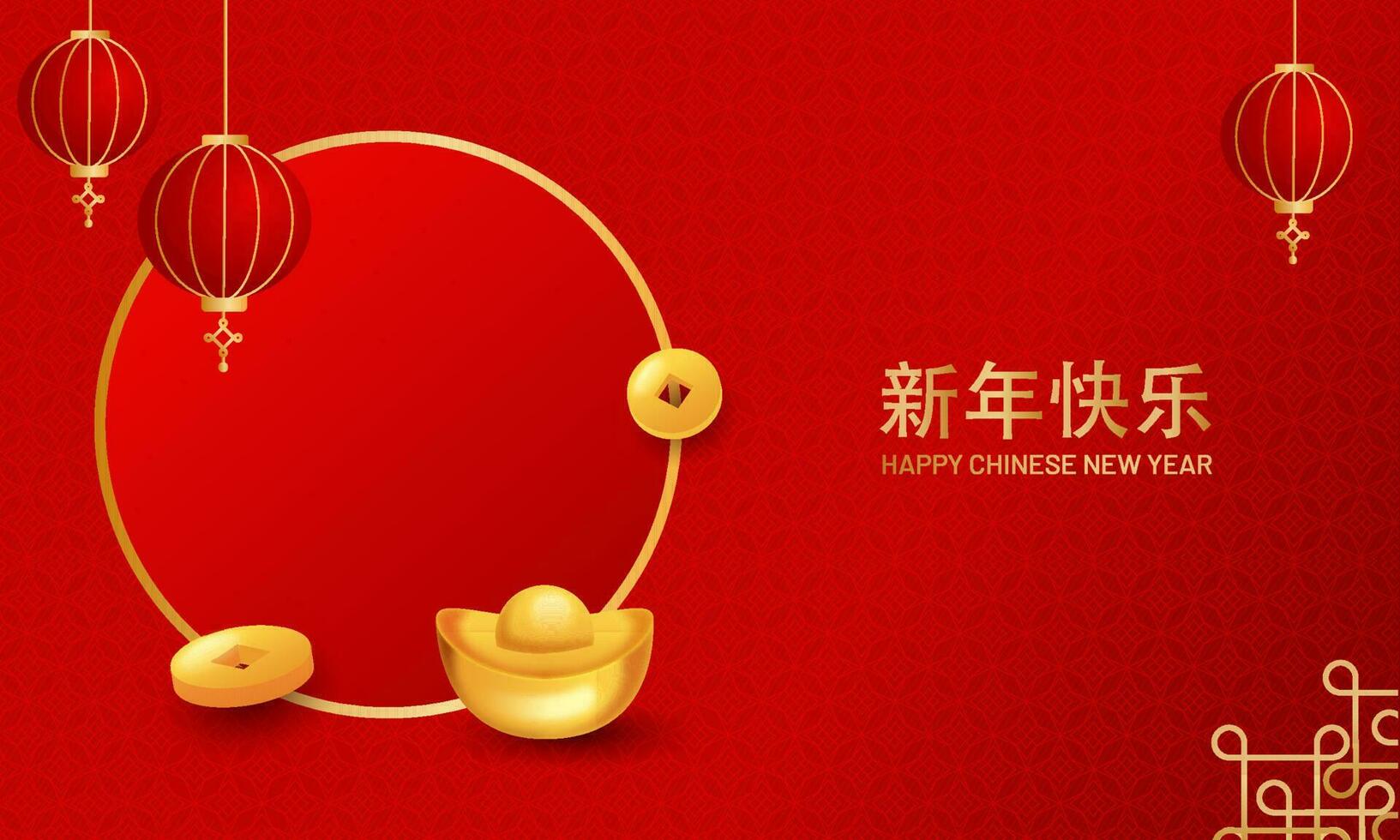
Golden Happy New Year Font Written In Chinese Language With Hanging Lanterns, Realistic Ingots, Qing Ming Coins And Empty Circular Frame On Red Chinese Pattern Background. Pro Vector